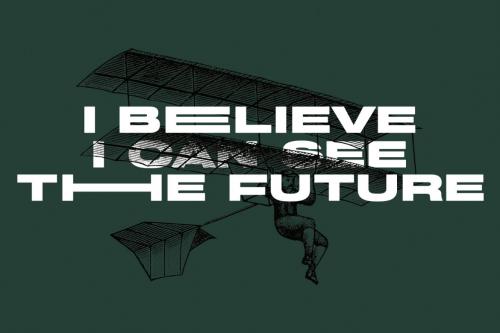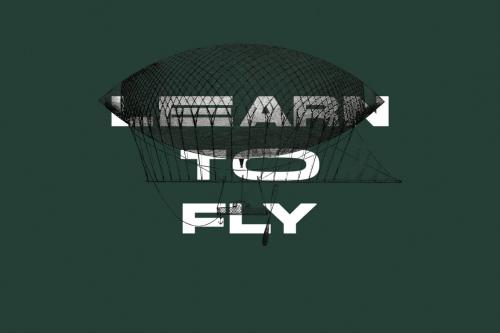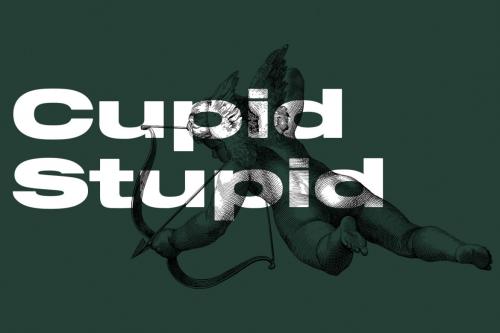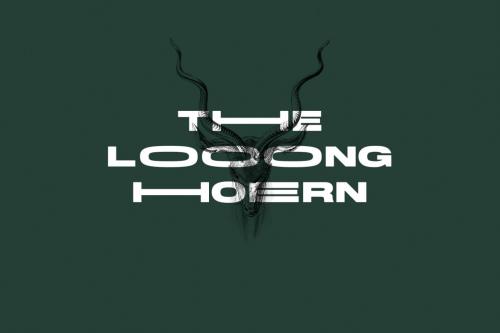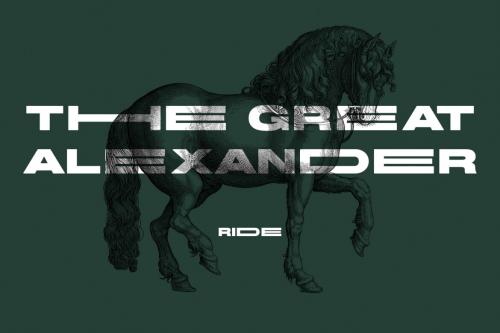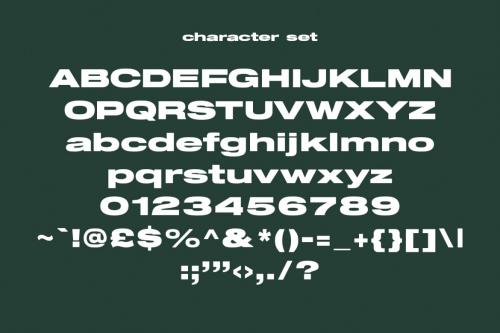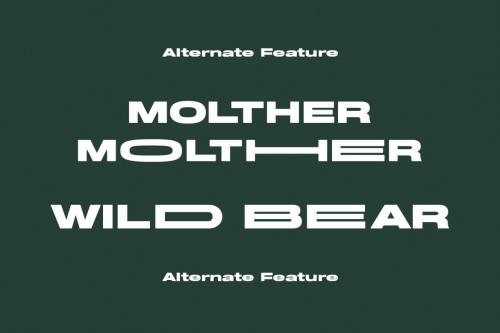
Deeezy - Molther Sans Display Font
Molther is a modern wide sans display font. With medium low contrast stroke, fun character with a bit of ligatures and alternates. To give you an extra creative work. Molther font support multilingual more than 100+ language. This font is good for logo design, Social media, Movie Titles, Books Titles, a short text even a long text letter and good for your secondary text font with sans or serif. Make a stunning work with Molther font.